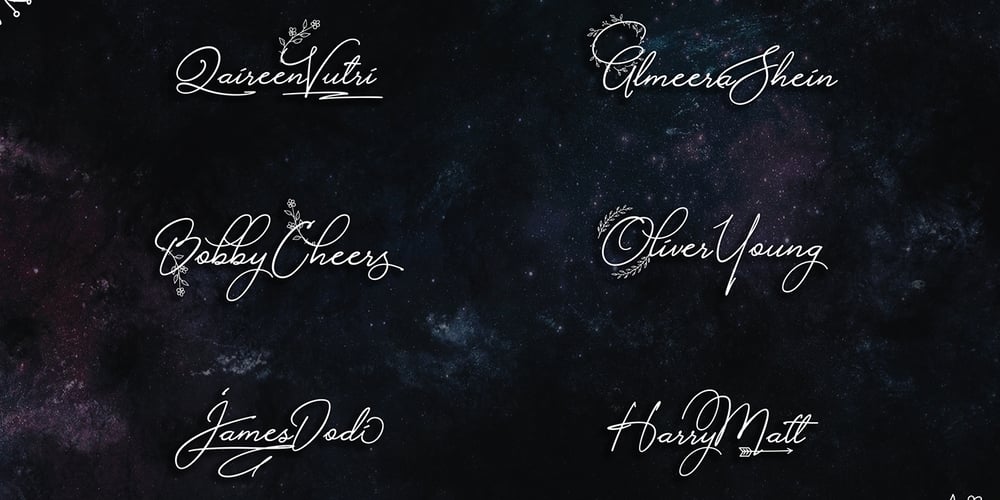
Alistair Signature Font Family was designed by Ilhamsyah Vutra and published by Aktab Studio. Alistair Signature contains 2 styles and family package options. Alistair Signature Font is a modern font with more featured and made with hand lettering. Alistair Signature Font have a complete glyphs, this font suitable for wedding invitation, greeting cards, T-Shirt, Logo or any design that you create. comes with a complete set of standard characters, Alternates, Punctuation & have extra ornament for your design and many more. The Features of this fonts is: – UPPERCASE and lowercase – Numeral and punctuation – Stylistic Sets – Stylistic Alternates and Contextual Alternates – International Glyphs support to All Stylistic Sets – Support PUA unicode (specially coded fonts) – Standart Ligatures and Discretionary Ligature – Fractions – Initial and Terminal Forms – Swash – Smallcaps Numeral